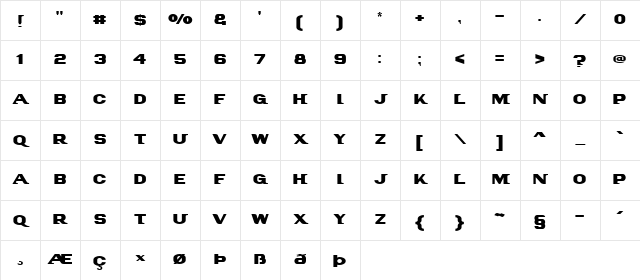
PanAm Text Regular
Design Context for PanAm Text
PanAm Text is a composed and adaptable typeface that performs quietly and consistently across a wide range of design contexts.